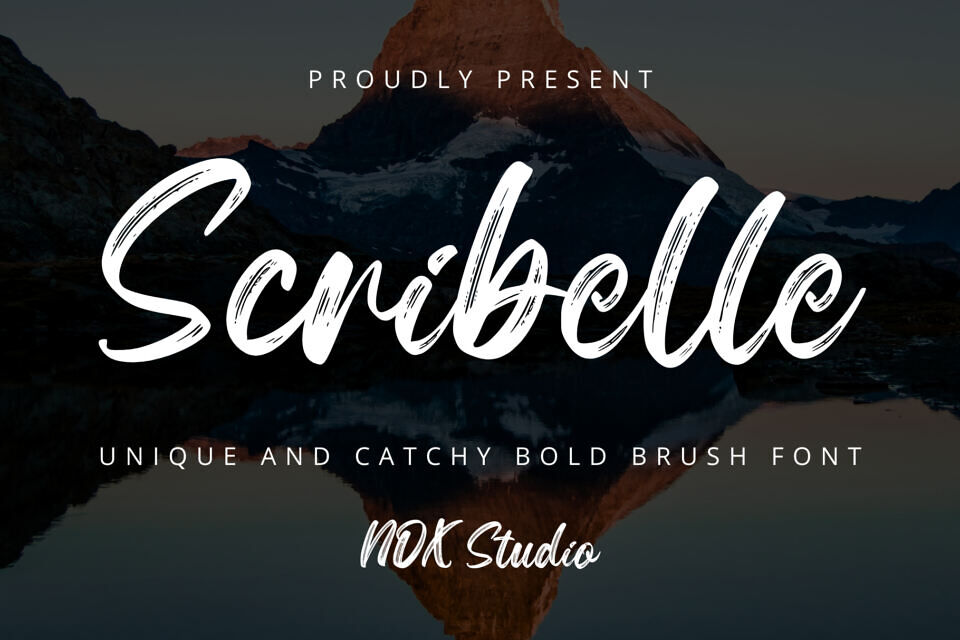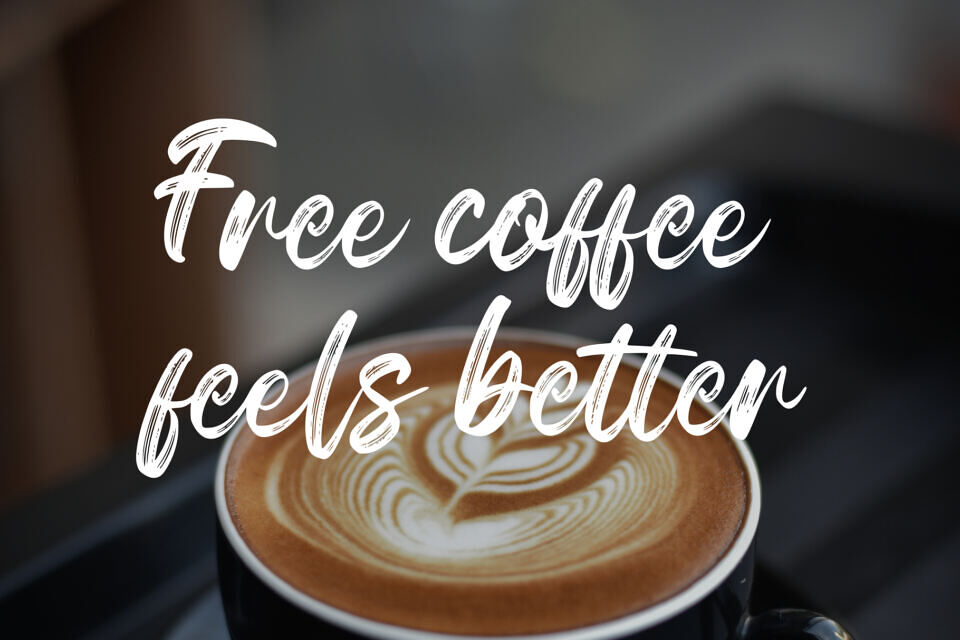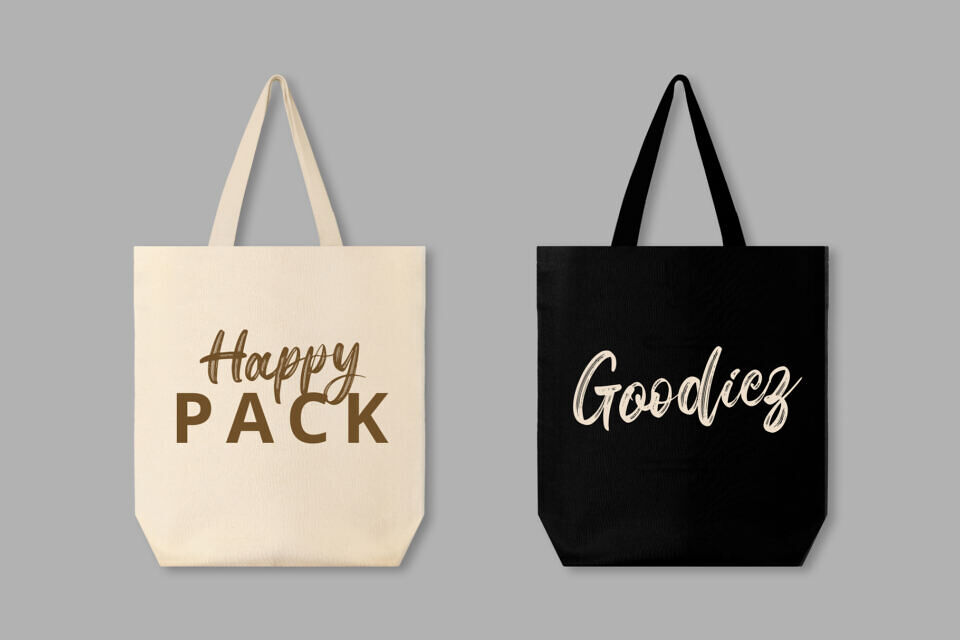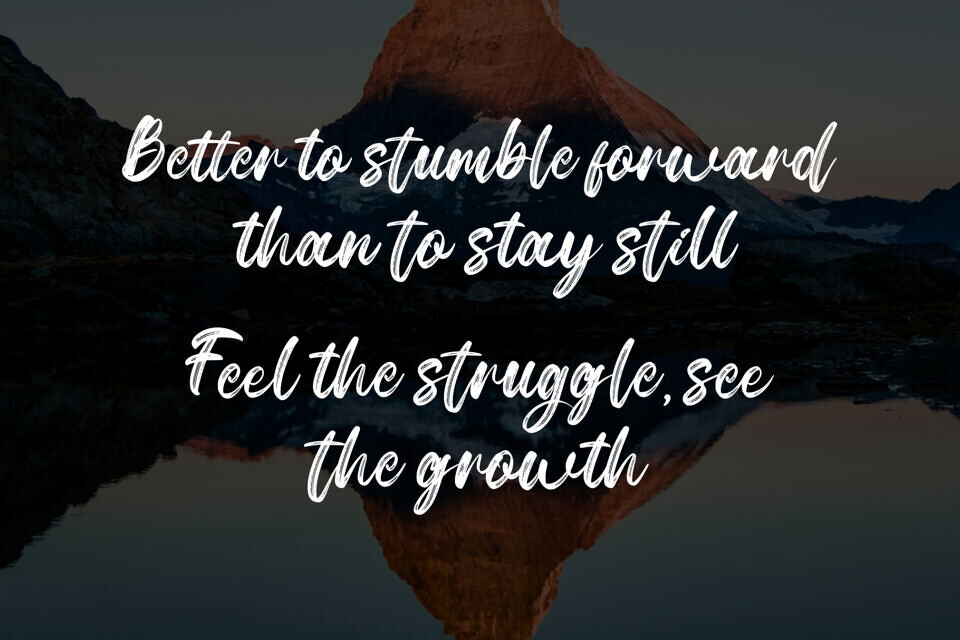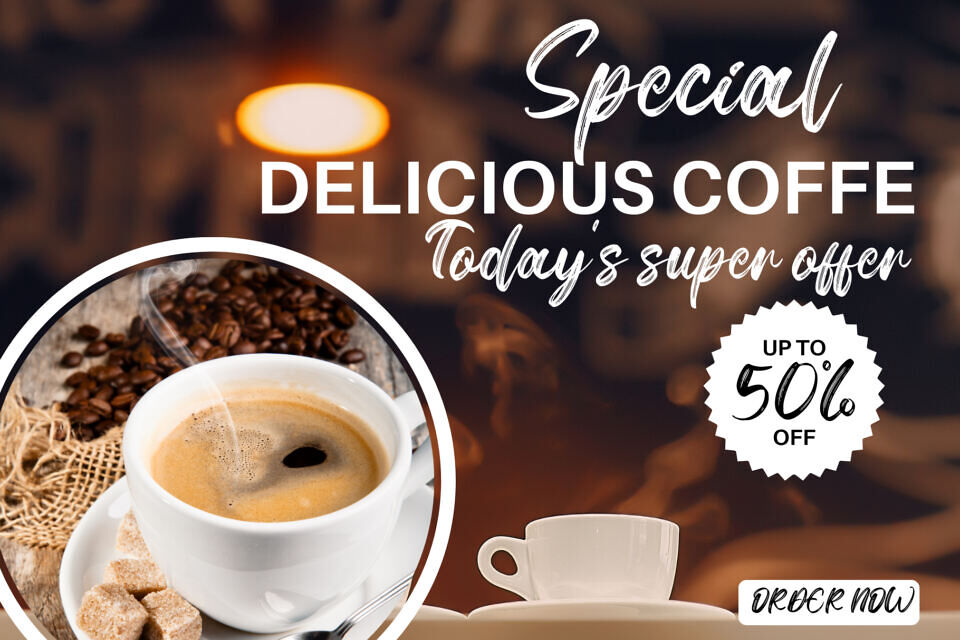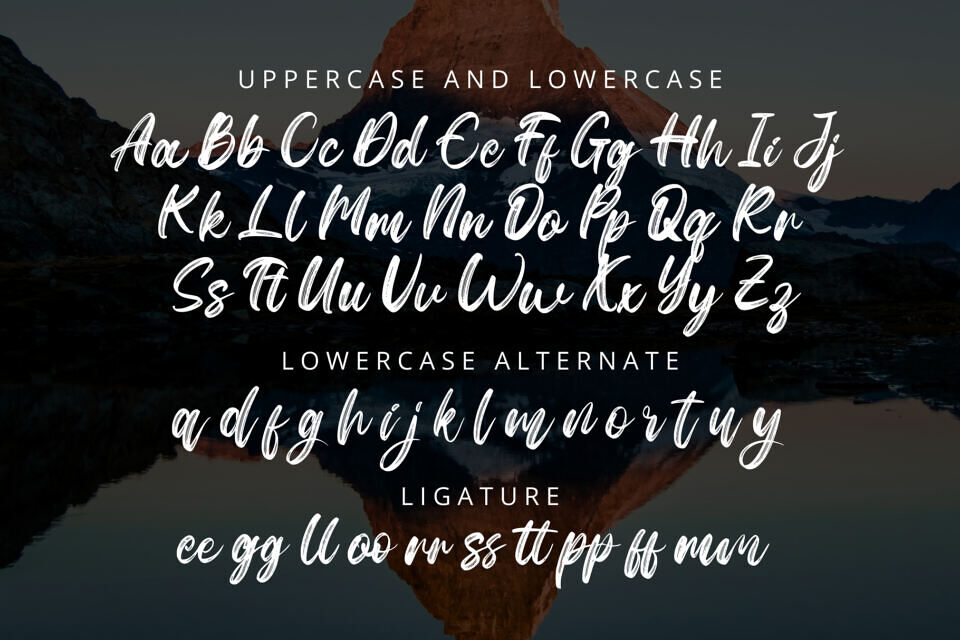
Boasting a captivating script style, Scribelle Font evokes a visually poetic charm that effortlessly enhances your artistic flair. Scribelle font seamlessly integrates across a wide array of design concepts, adding a touch of sophisticated finesse to your design narratives.
Further enriched with a lavish array of ligatures and alternates, it extends the flexibility of your designs, opening up infinite pathways towards visual articulation. Surrender to the irresistible allure of Scribelle font and elevate your design instincts to unparalleled levels of brilliance.